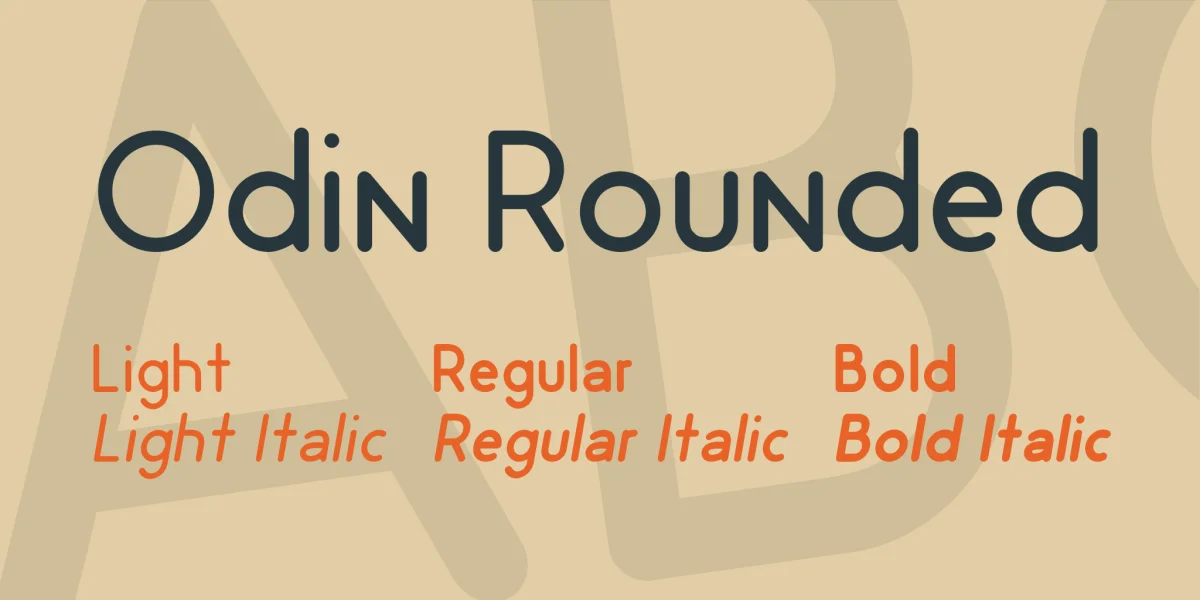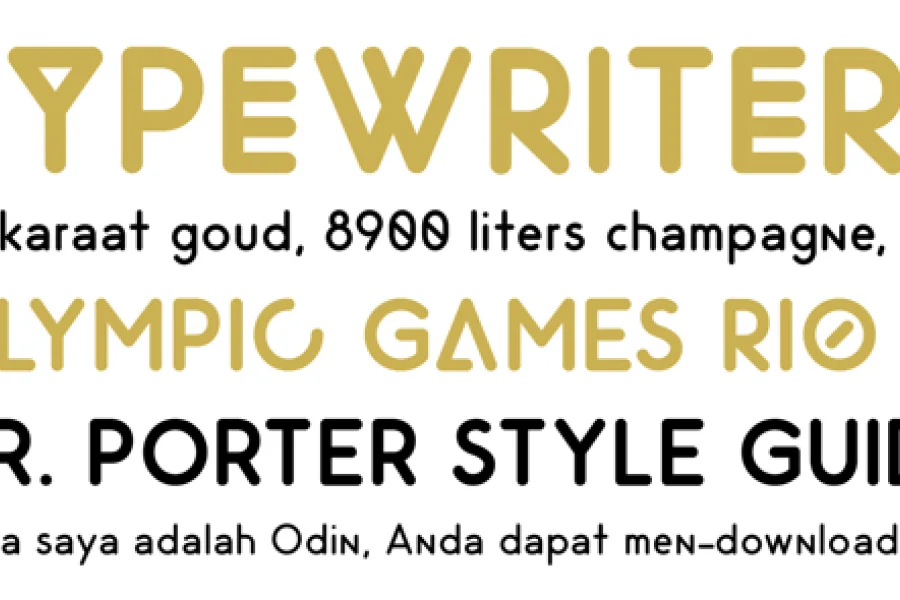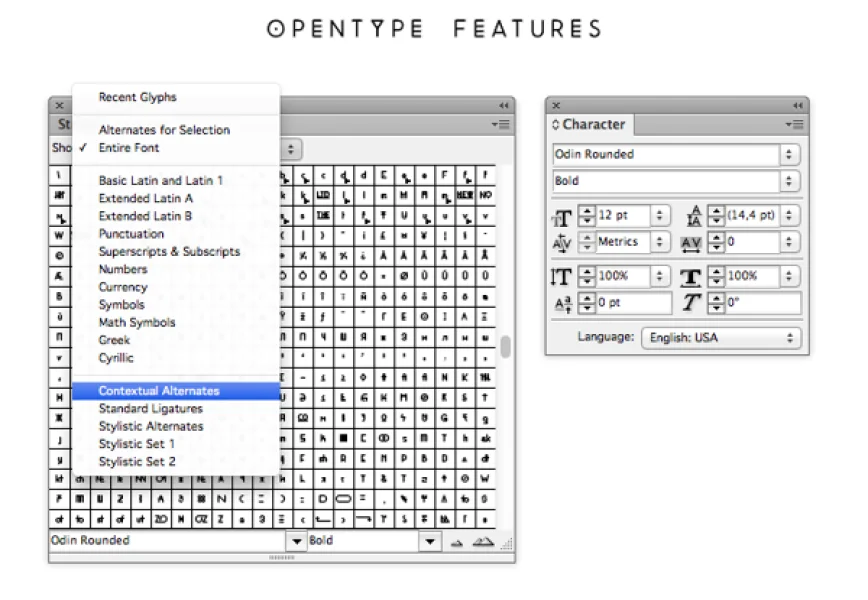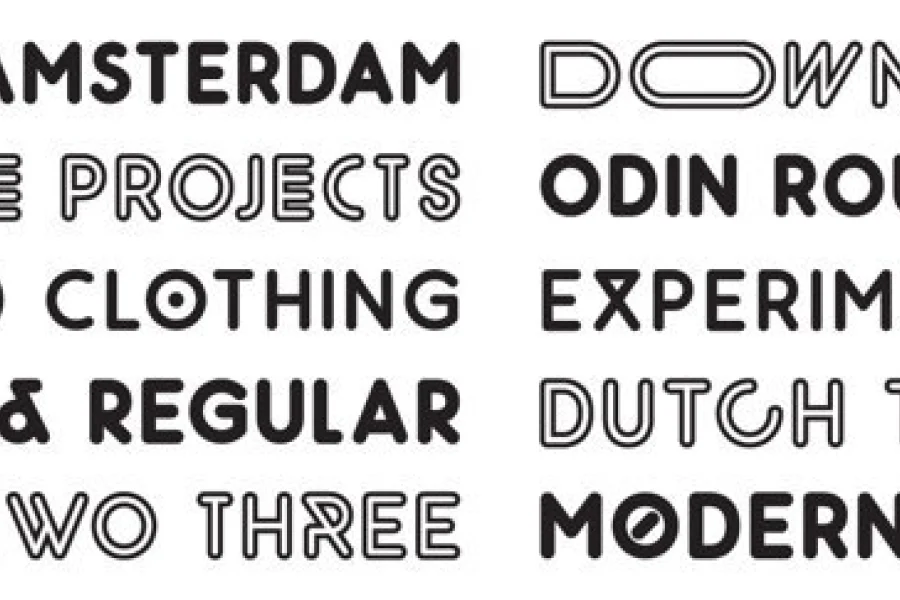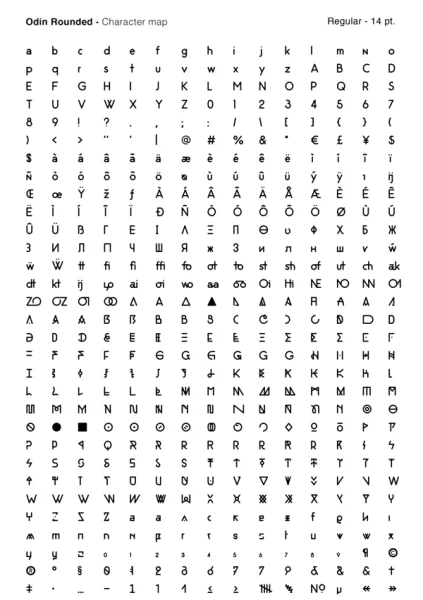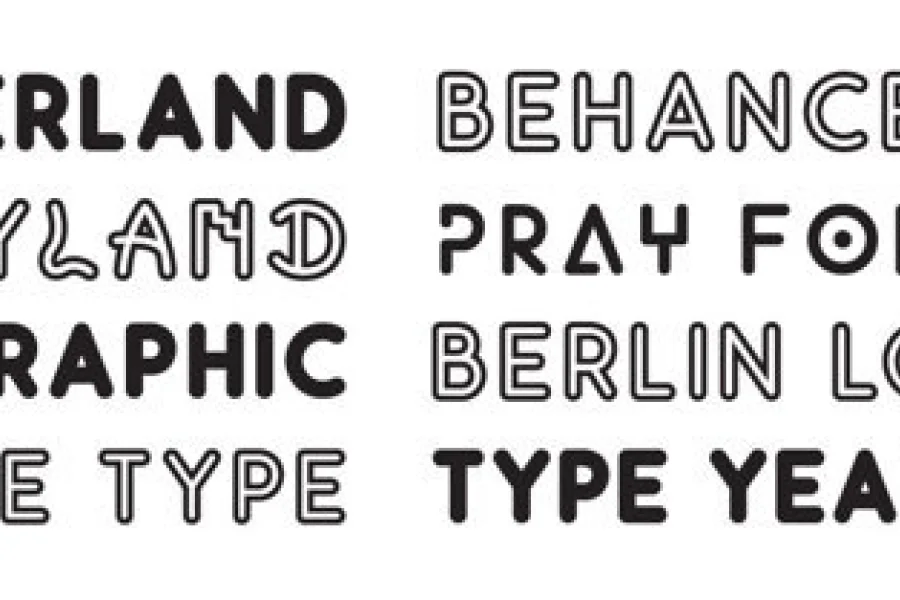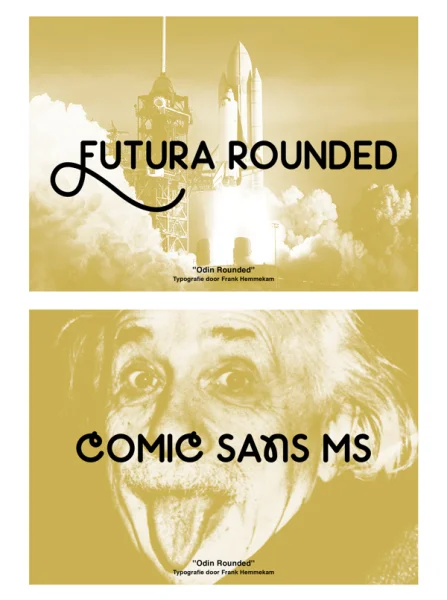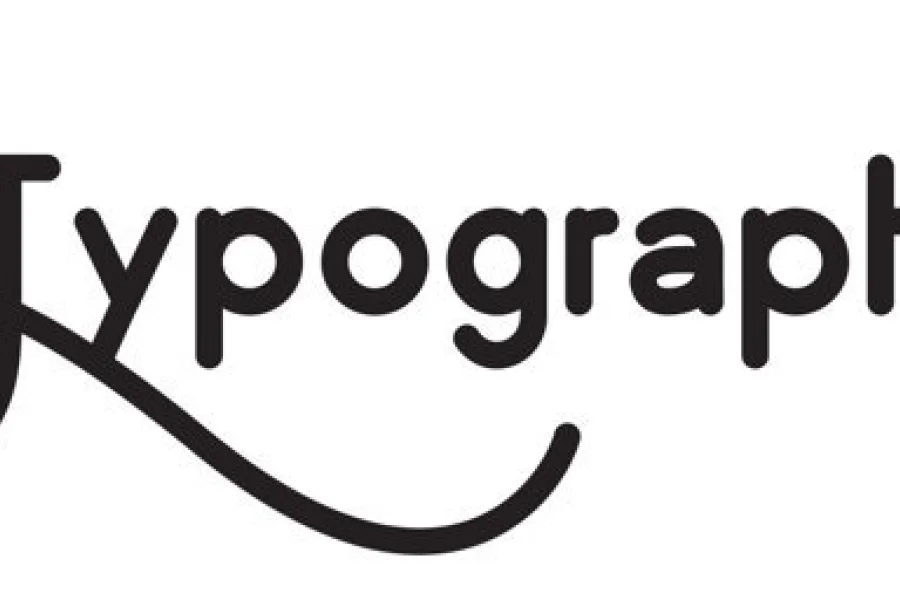
Odin Rounded is an free experimental font family with a clean and linear appearance. The simple compact nature of the design and the many alternates allows for great economy of space across layouts. it supports upper/lowercase, kerning and opentype features. I hope you like it! Please send me some images of you're project using the font Odin. I am really interested!